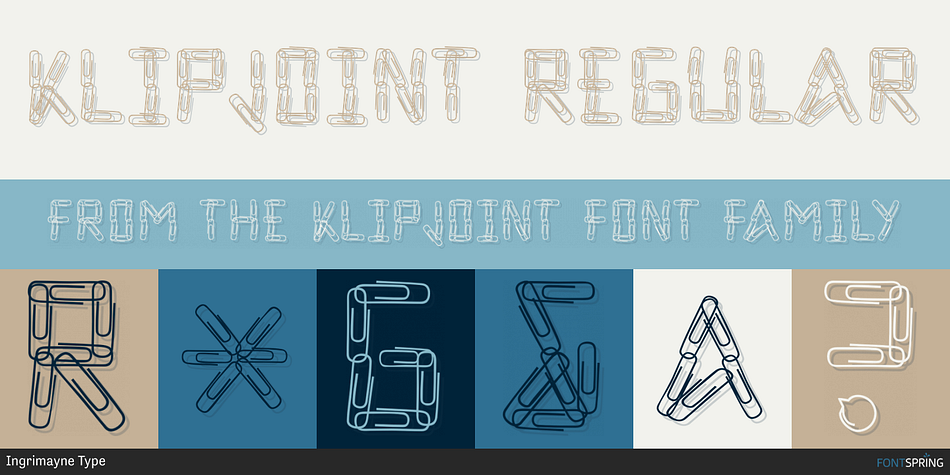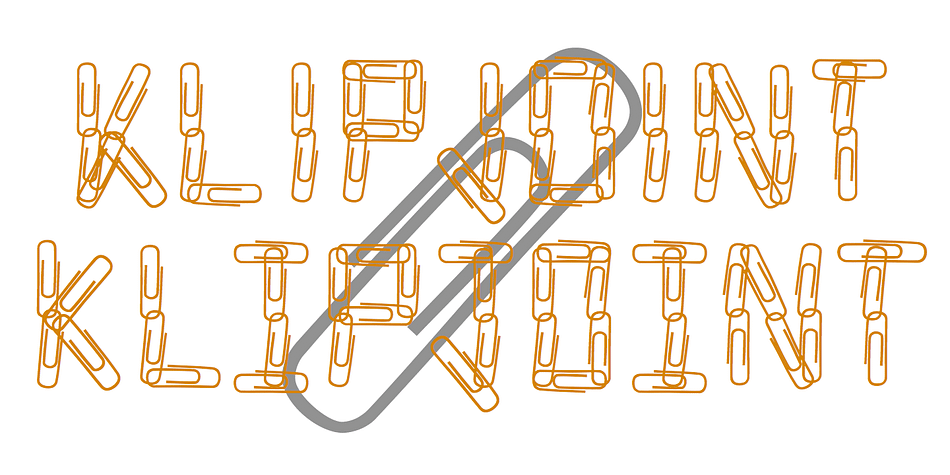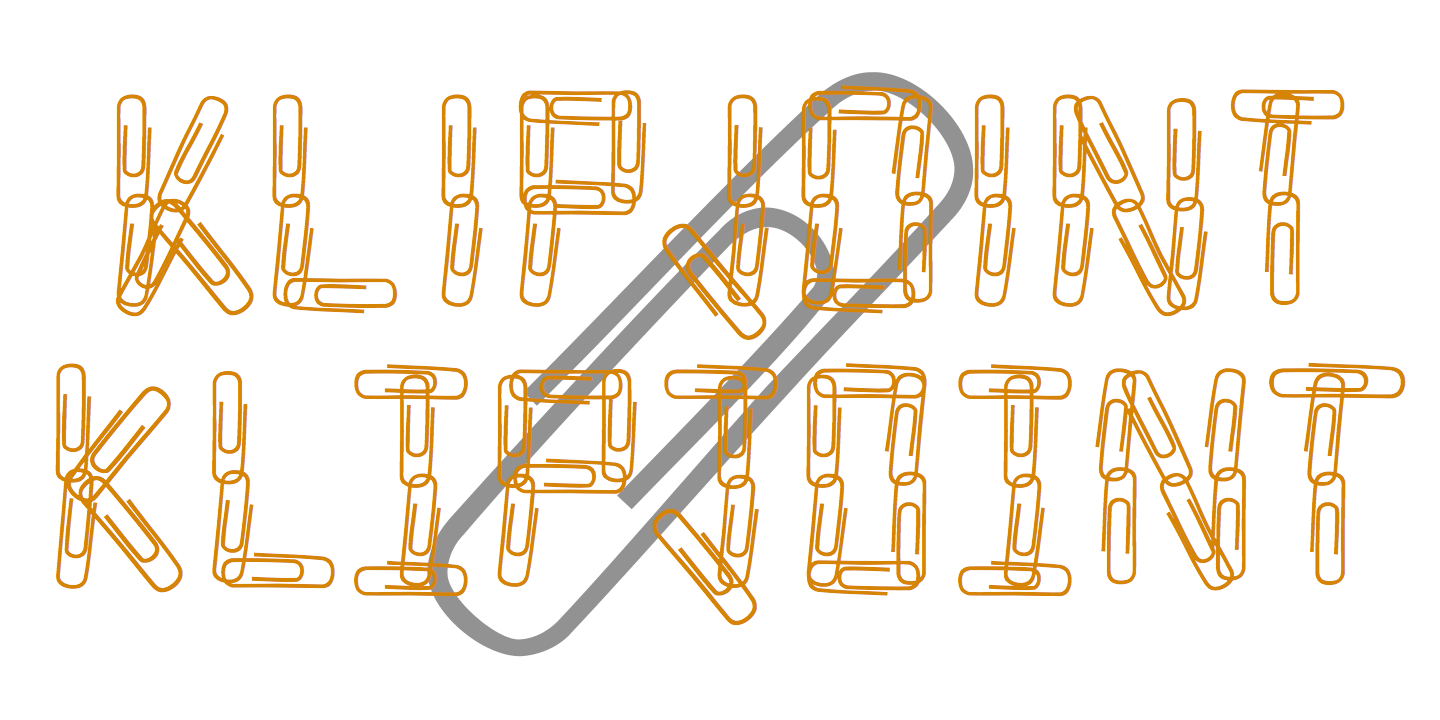
Designed by Robert Schenk, KlipJoint is a novelty font published by Ingrimayne Type.
KlipJoint is a letterbat font in which all the characters are formed from paper clips. It does not have a true set of lower case letters, but in their place is a second and often different set, of upper-case letters.